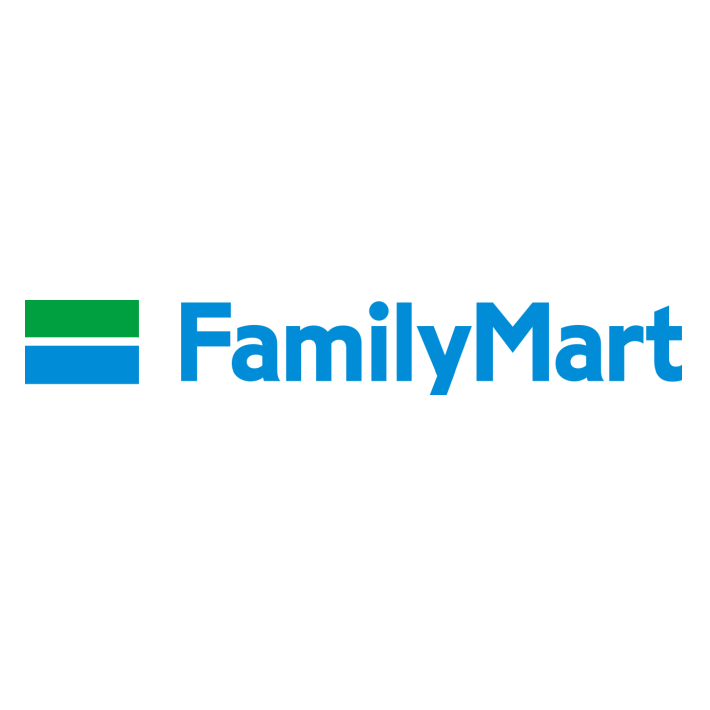
FamilyMart Logo Font
Fonts in UseFamilyMart is a Japanese convenience store chain founded in 1973 by the Itochu Corporation. It operates over 24,000 stores in multiple countries, providing a wide range of products and services to customers.
FamilyMart's logo showcases a humanist sans serif font called Corinthian Bold. Designed by Colin Brignall between 1981 and 1983, the typeface drew inspiration from Edward Johnston's Railway Type and Eric Gill's Gill Sans. You can learn more about the font family here.